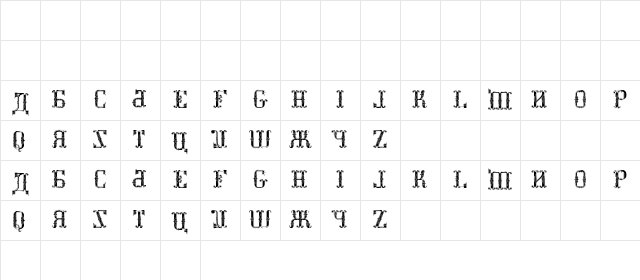
Kremlin Synod (Display Caps) Regular
Design Context for Kremlin Synod (Display Caps)
Kremlin Synod (Display Caps) is built around its visual character rather than neutral utility - its distinctive forms are designed to make an impression at display sizes.
Font Pairing: Pair with a clean neutral sans-serif for body copy to let Kremlin Synod (Display Caps)'s character lead without overwhelming the composition.
Pro Tip: Use Kremlin Synod (Display Caps) exclusively at display sizes - it was designed to be seen, not read at length. Let a neutral companion handle body copy.